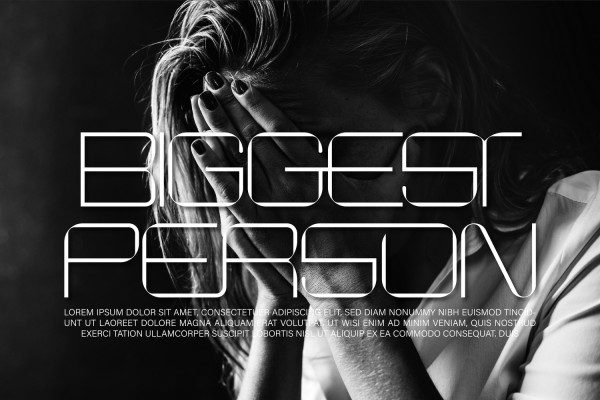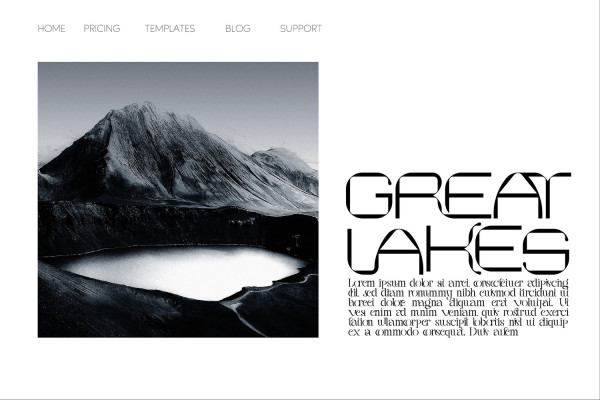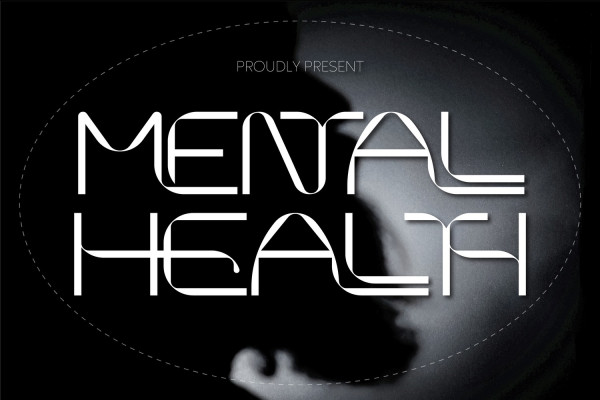
Mental Health Font
Mental Health Font is simple but significant, and defined by its crisp edges and modern touches. a modern and futuristic sans serif font. The combination of futuristic and geometric elements renders a modern design. This font is perfect for any branding, logos, magazines, videos, weddings, quotes, print, product packaging, website, clothing designs and much more.
Mental Health was built with OpenType features and includes 100 ligatures, alternate, numbers, punctuation, and it also supports other languages.
AC AD AL AN AR AS AT AU AV BE CA CE CH CO CT DE DI EA EC ED EE EL EM EN EP ER ES ET FE FO FR GE HA HE HI HO IE IC IL IN IO IR IS IT JU KE LA LE LI LL LO LY MA ME MI NC ND NE NG NO NT NS OC OF OM ON OO OP OR OT OU OW PA PR RA RD RE RI RO RS RT SE SH SI SO SS ST TA TE TH TI TO TR TT UM UN UR VE WI WO